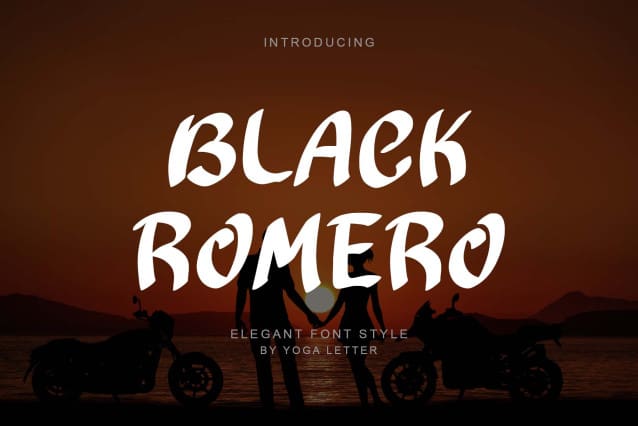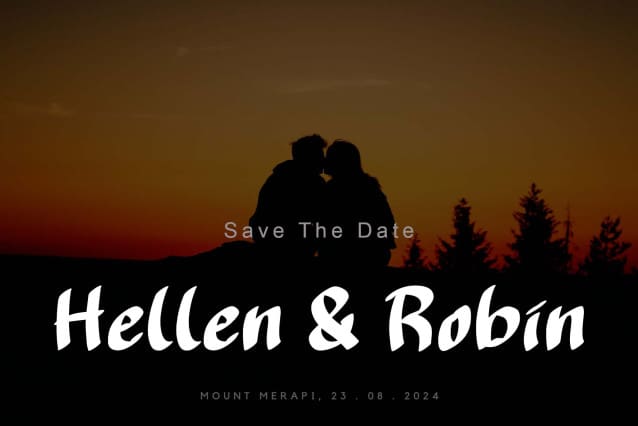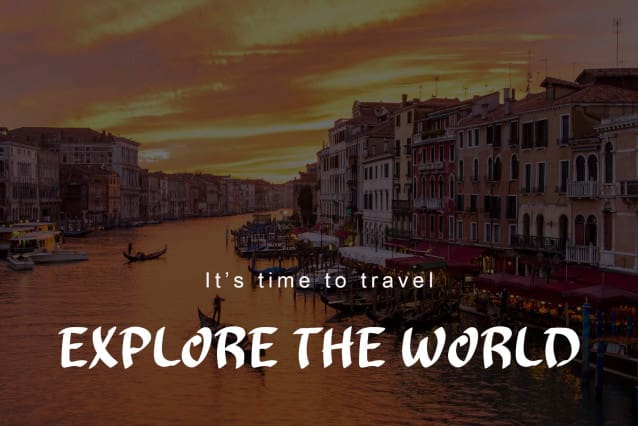
Black Romero Font
Black Romero Font is a unique and elegant handwritten font. This font is equipped with uppercase, lowercase, numerals, punctuation, and multilingual support. Very suitable for logos, banners, vacations, holidays, posters, prints, branding, stickers, summer, spring, winter, Valentine, Easter, and others.